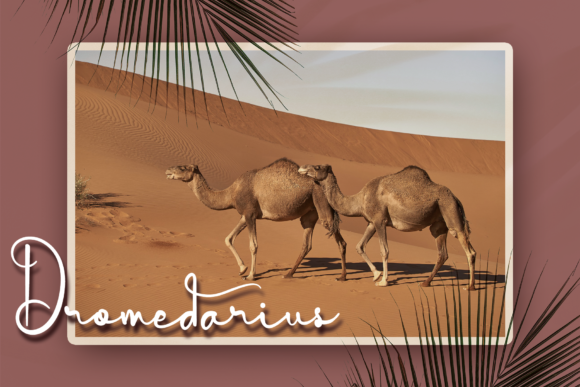
The Algeria Font: A Hidden Gem for Designers and Creators
I still remember the design project that led me to discover the Algeria font. I was working on a branding project for a luxury boutique hotel, and I needed a font that would evoke elegance, sophistication, and a touch of whimsy. After hours of scouring font libraries and testing various options, I stumbled upon Algeria – a thin and cursive script font that instantly captured the essence of the hotel’s brand. In this article, I’ll share my experience with Algeria, its features, and how to make the most of it in your designs.
An Honest Review of Algeria Font
What I Love About Algeria ✨
• 💫 Extremely legible, even at small font sizes
• 🎨 Highly detailed and neatly crafted, making it perfect for high-end designs
• 📝 Versatile and adaptable to various design projects, from luxury branding to wedding invitations
• 👍 Excellent for use in headlines, titles, and short paragraphs
While Algeria is an exceptional font, it’s not without its limitations. Here are a few things to keep in mind:
• 🤔 May not be the best choice for body text or long paragraphs, as it can be a bit too ornate
• ⚠️ Some characters, like the lowercase ‘k’ and ‘q’, can be a bit tricky to read if not used at the right font size
Exploring Algeria’s OpenType Features 🔍
Algeria font comes with a range of OpenType features that can enhance your designs. Here are a few features to explore:
• Stylistic alternates: Algeria offers a range of stylistic alternates that can add more character to your text
• Glyphs: The font includes a set of glyphs that can be used to add decorative elements to your design
The Designer Inspiration Behind Algeria 🧐
The Algeria font was inspired by the country’s rich cultural heritage and stunning natural landscapes. The font’s creator aimed to capture the essence of Algeria’s elegant and refined culture, while also conveying a sense of playfulness and creativity.
What is the Algeria font best suited for? The Algeria font is ideal for luxury branding, high-end designs, wedding invitations, and creative projects that require a touch of elegance and sophistication.